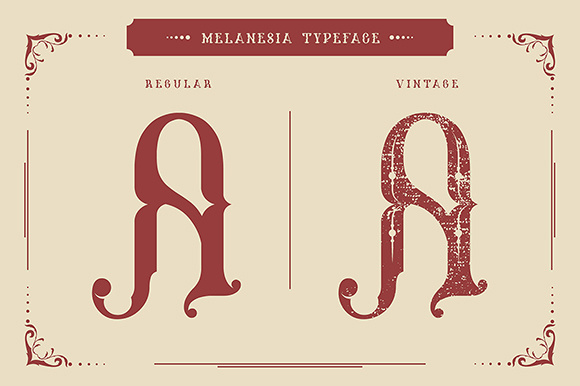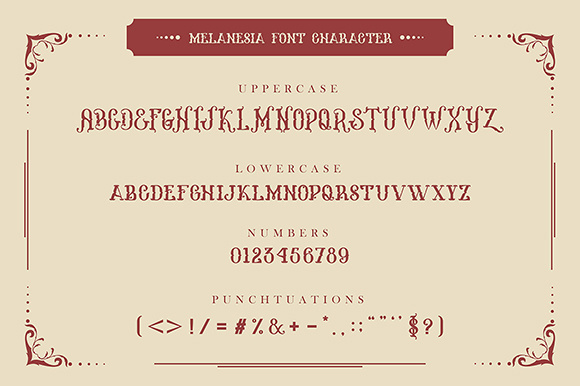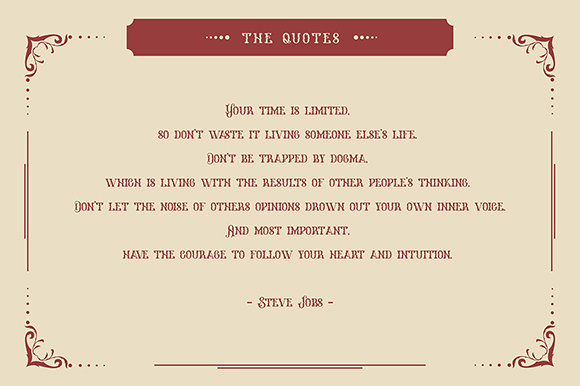
Introduction to Melanesia Font
Meet the Melanesia Font, a high-quality display font that’s sure to make your designs stand out. With its unique and trendy style, this font is perfect for any creative project that needs a touch of elegance. And the best part? It’s available in two styles: regular and vintage, giving you the flexibility to choose the one that suits your design best.
Key Features of Melanesia Font
- High-quality font with a unique and exotic design, perfect for creative projects that require a touch of cultural flair.
- Perfect for use in logos, branding materials, and other design elements that require a distinctive and eye-catching look.
Honest Review: Melanesia Font
What works well: ✨ The Melanesia Font has a high quality feel to it, with crisp lines and a clean design. The transparent background makes it easy to use on a variety of backgrounds, and the font is highly customizable.
- Wide range of weights and styles to choose from
- Highly customizable for use in logos, headings, and body text
- Transparent background for easy use on any background
The Melanesia Font is ideal for a variety of creative projects, including logos, brochures, and social media graphics. Its unique design and transparent background make it a versatile design resource that can be used in a range of different contexts.